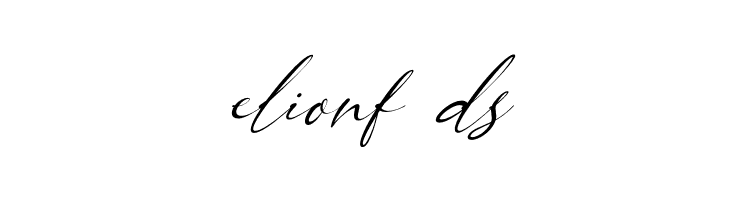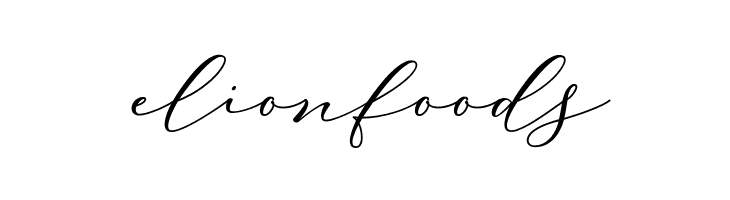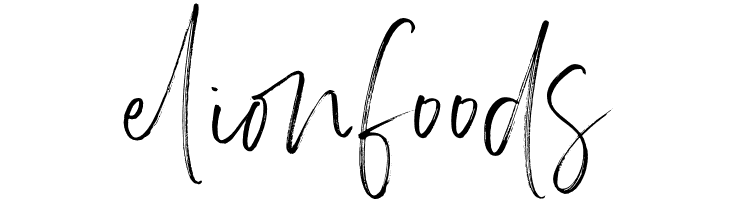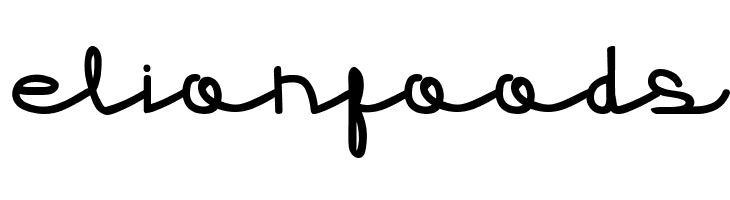
A lively and expressive handwritten font with fluid strokes.
A playful, casual handwritten font with smooth, flowing lines.
An elegant, high-contrast script font with flowing, interconnected letters.
A sophisticated script font with flowing, interconnected letters and elegant flourishes.
A lively, flowing script font with elegant curves and dynamic strokes.
A playful and elegant handwritten script font with dynamic strokes.
A lively, expressive script font with a handwritten feel and dynamic contrast.
A playful, decorative font with vintage carnival flair.
A dynamic handwritten font with fluid strokes and natural flow.
A lively and expressive script font with a handwritten feel.